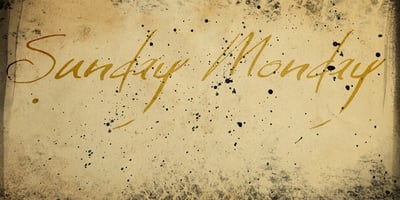
Sunday Monday
Sunday Monday font
Sunday Monday Font Family was designed by David Kerkhoff and published by Hanoded. Sunday Monday contains 1 styles and family package options. Sunday Monday font is a cursive, handwritten typeface. It has been crafted using India ink and an old steel pen. I have added some splatter and stain, to give it a ‘grungy’ look. Sunday Monday comes with kerning and all diacritics.